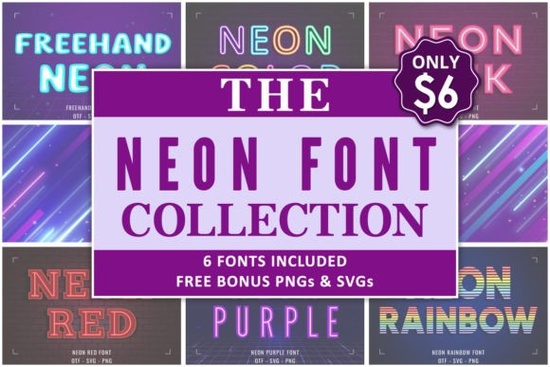
If you’ve been looking for a font that brings the glow and energy of city nightlife into your designs, the Neon Collection Font is worth checking out. It’s not just one font it’s a bundle of six OTF files, each designed to mimic the vivid, glowing look of neon signs. Whether you’re personalizing t-shirts, designing stickers, or creating custom mugs, these fonts add instant visual pop without needing extra effects or filters.
The letterforms are sleek and modern, with curves and edges that feel urban and alive. What really sets them apart are the included bonus graphics SVG and PNG files which let you drop ready-made neon-style elements right into your projects. No need to build everything from scratch. If you liked the playful vibe of the Colorful USA Flag Font or the shimmer of the Mermaid Rainbow Font, this collection will feel like a natural next step.
What kinds of projects work best with these fonts?
These fonts were made for physical products and eye-catching visuals. Here’s where they shine:
- T-shirts and hoodies especially for music festivals, nightclubs, or retro-themed events.
- Phone cases and laptop skins add a glowing quote or name that stands out.
- Stickers and decals perfect for laptops, water bottles, or car windows.
- Mugs and tumblers morning coffee just got a little more electric.
- Greeting cards and posters birthdays, parties, or motivational quotes get an instant upgrade.
How do these compare to other colorful fonts on Creative Fabrica?
While fonts like the Independence Day 3D Font focus on patriotic depth and the Safari Font leans into wild, textured adventure, the Neon Collection is all about smooth, luminous contrast. It doesn’t try to be gritty or hand-drawn it’s clean, digital, and built to glow. That makes it especially useful for print-on-demand sellers who want something bold but still professional-looking.
If you’re pairing it with photos or backgrounds, stick to dark or neutral tones. Neon works best when it has space to stand out. Light grays, deep blacks, or even concrete textures let the colors breathe. Avoid busy patterns they’ll compete with the font’s natural drama.
Any tips for getting the most out of this bundle?
A few simple tricks go a long way:
- Layer lightly. These fonts already have strong presence avoid stacking too many effects on top.
- Use sparingly. One or two words in neon style often look better than whole paragraphs.
- Pair with minimalist fonts. A clean sans-serif as body text balances the neon headline nicely.
- Export at high resolution. Especially for print, make sure your PNGs or vectors are crisp.
Whether you’re making gifts, running a side hustle, or just love playing with bright, expressive typography, this bundle gives you flexibility without complexity. And if you ever feel stuck, browsing similar styles like the Neon Collection previews can spark fresh ideas.
Next step: Open your favorite design tool, pick one of the six fonts, and try it on a simple project maybe a sticker or quote graphic. See how it feels. Sometimes the best way to know if a font fits your style is to just start using it.